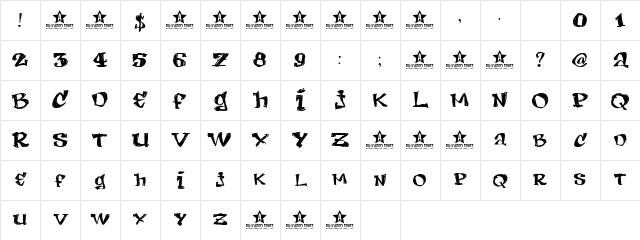
LEMON DAY Copyright (c) 2009 by Billy Argel. All rights reserved. SemiBold Free Font
LEMON DAY Copyright (c) 2009 by Billy Argel. All rights reserved. SemiBold
Style: SemiBold
Foundry: Billy Argel
Designer: Billy Argel
Design Context for LEMON DAY Copyright (c) 2009 by Billy Argel. All rights reserved.
LEMON DAY Copyright (c) 2009 by Billy Argel. All rights reserved. is a composed and adaptable typeface that performs quietly and consistently across a wide range of design contexts. Its bold stroke weight gives it real presence on the page.